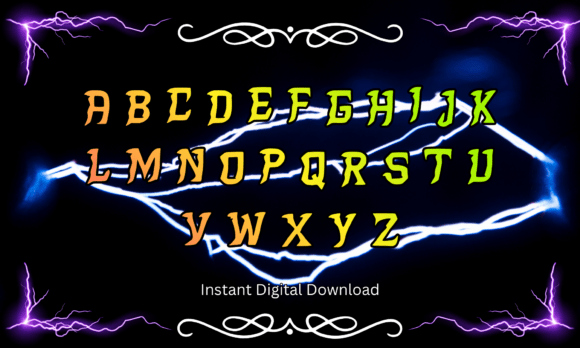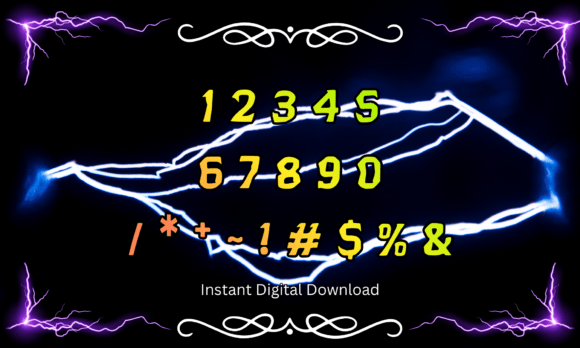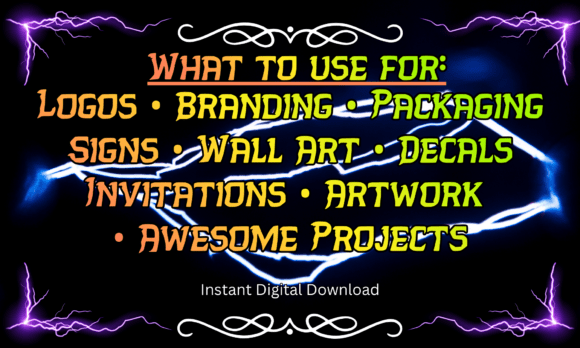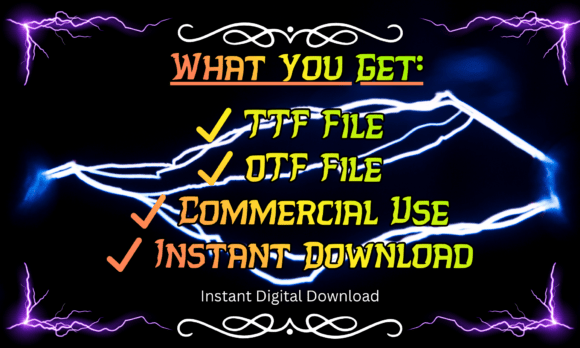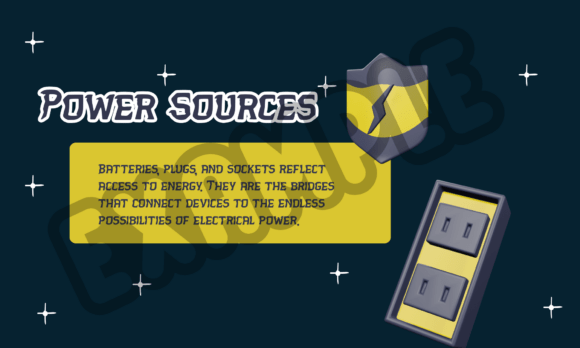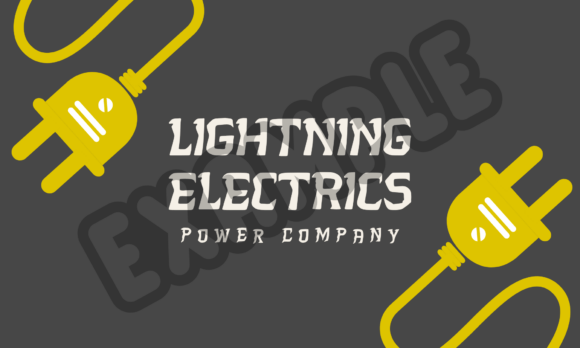
Unleash the Power of Electric: A High-Energy Display Font
Have you ever been working on a design project, and suddenly, it just feels… flat? You’re trying to convey a sense of energy, excitement, or modernity, but your font just isn’t cutting it. I know the feeling. It was during one of those moments that I stumbled upon the Electric font, and let me tell you, it’s been a game-changer.
The Electric Font: A Bold and Futuristic Aesthetic
Electric is a high-energy display font that features a bold, electrified aesthetic, perfect for designs that need to feel charged, modern, and eye-catching. With its dynamic shapes and vibrant gradient style, Electric brings a futuristic and gaming-inspired edge to any project ⚡️. Whether you’re working on logos and branding, gaming designs, stream overlays, stickers and merch, posters and signs, digital artwork, or social media graphics, Electric is the perfect fit.
Why You’ll Love Electric
Electric is made to stand out with:
- • High contrast shapes ✨
- • Strong readability ✅
- • Energetic visual impact ⚡️
Perfect for creators who want their designs to feel alive and powerful.
Honest Review
So, what do I love about Electric?
- ✨ The font’s high-energy aesthetic is perfect for grabbing attention.
- ✅ It’s incredibly versatile and can be used for a wide range of design projects.
- ⚡️ The font’s dynamic shapes and vibrant gradient style give it a truly futuristic feel.
As for quirks or limitations, here are a few to keep in mind:
- 🤔 Some users may find that the font’s bold style can be overwhelming for certain design projects.
The Designer Inspiration Behind Electric
The Electric font was inspired by the world of gaming and technology. The designer wanted to create a font that captured the energy and excitement of these industries, while also being versatile enough to use in a wide range of design projects. The result is a font that’s both futuristic and functional.